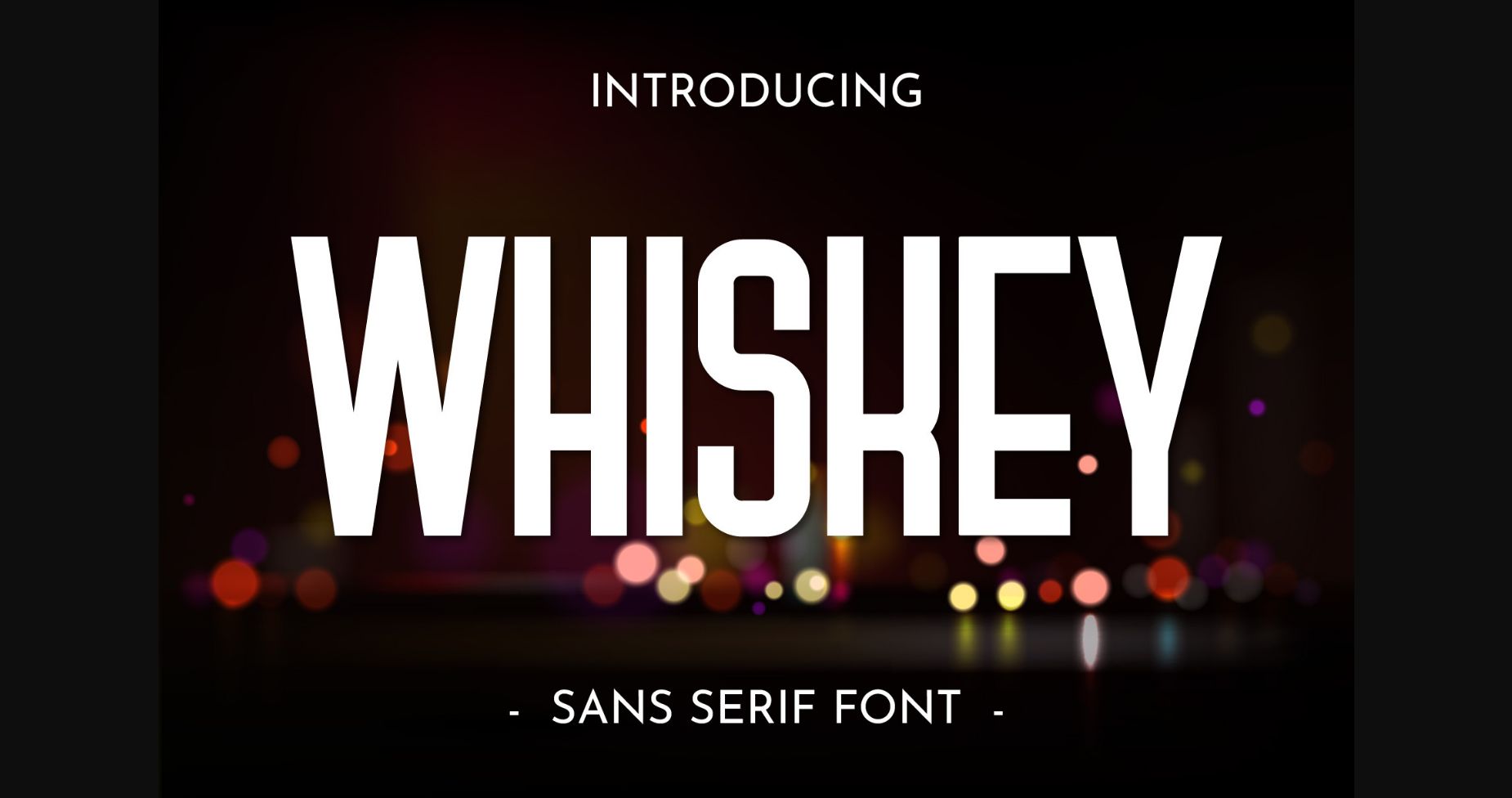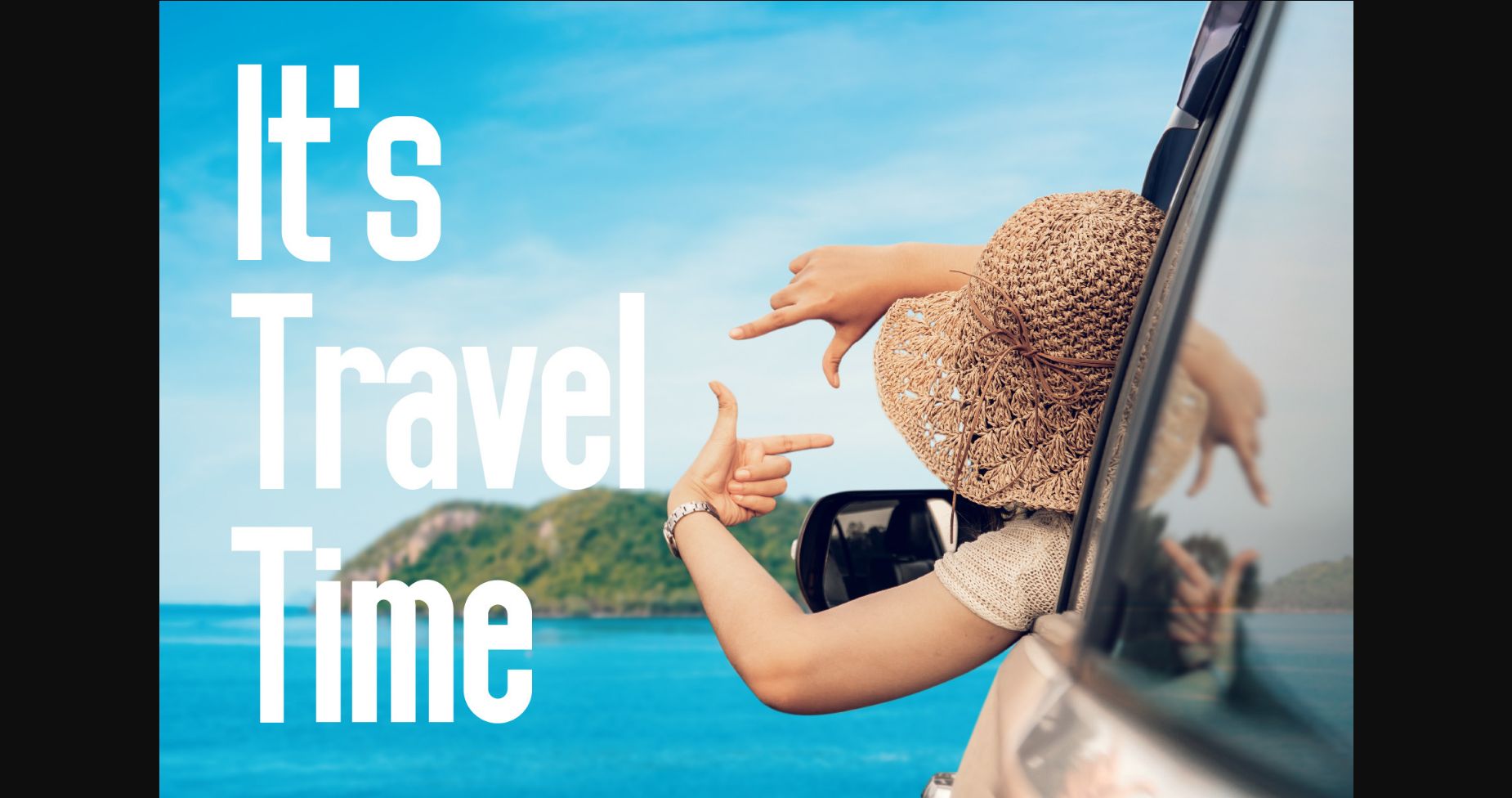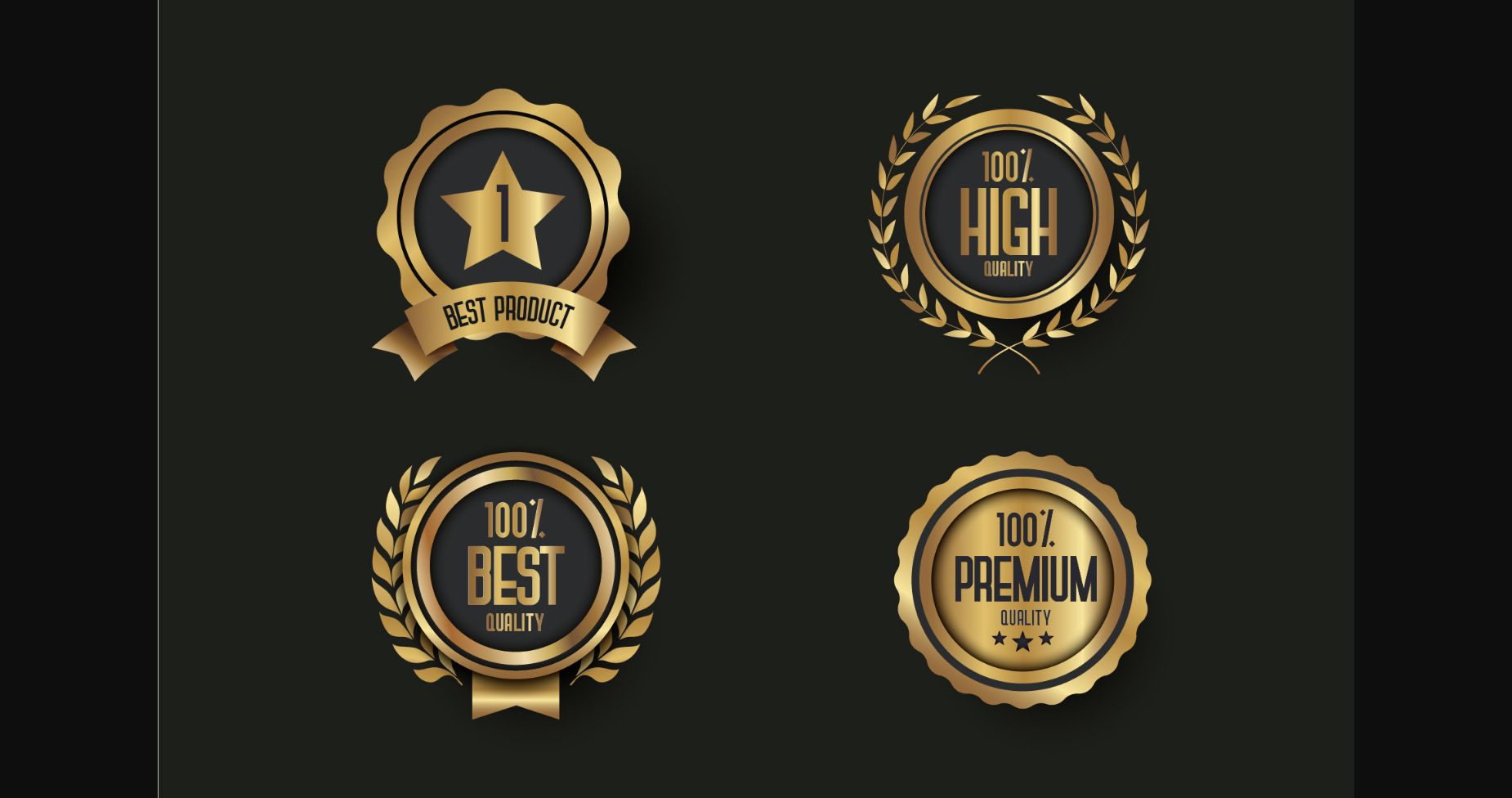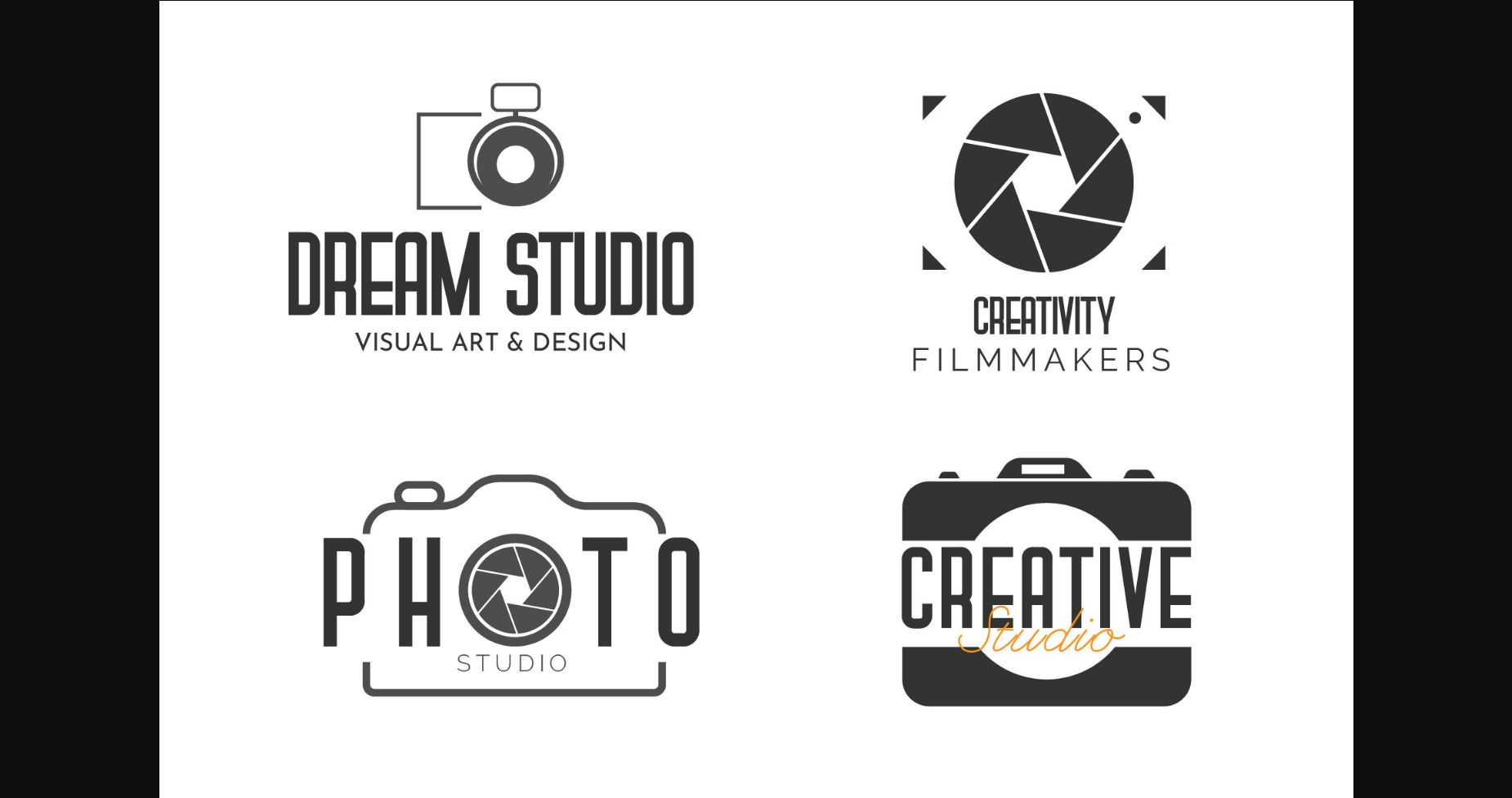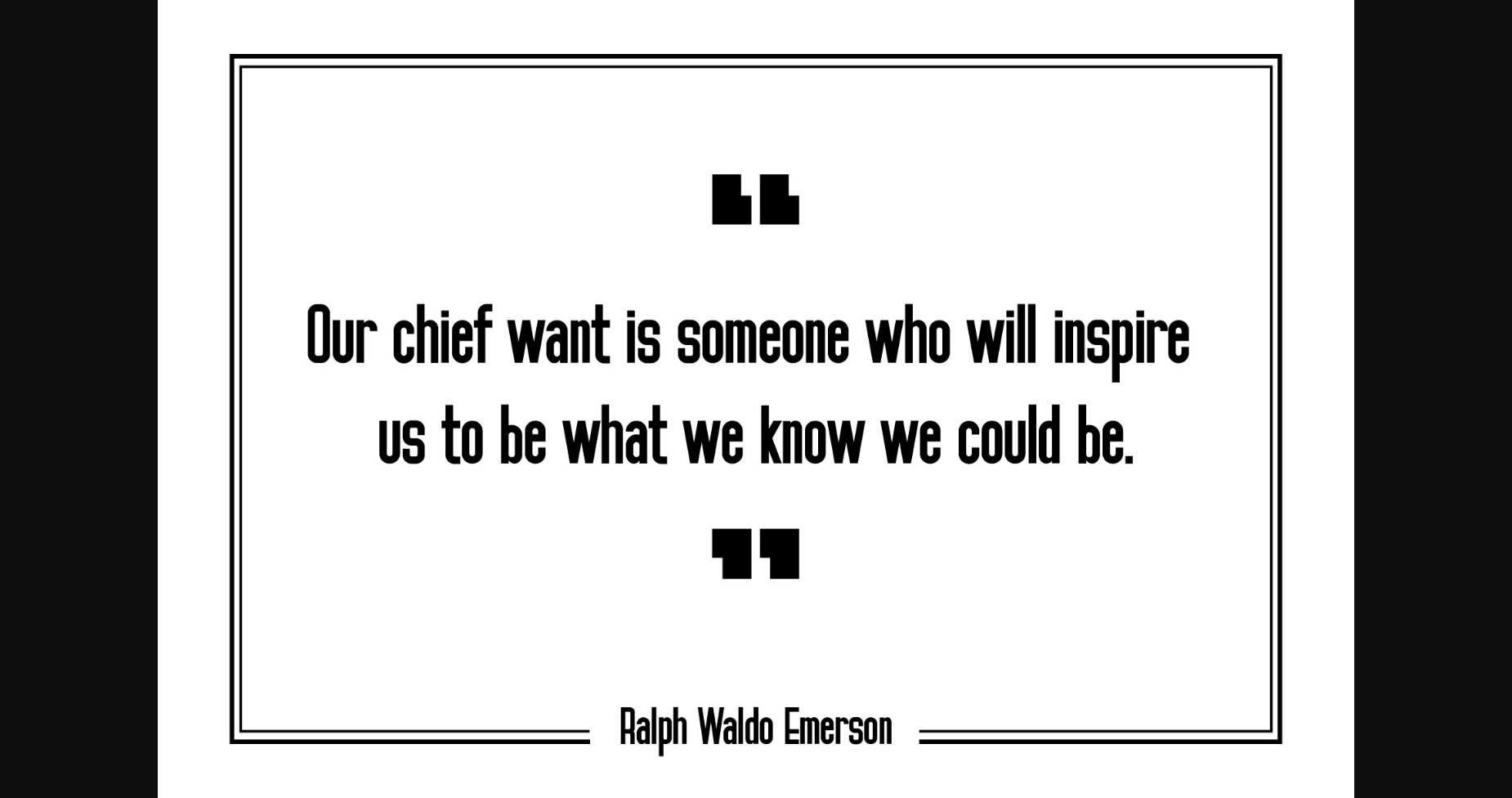
Whiskey Font
About Whiskey Font
Whiskey is a tall, simple sans serif font. This font is perfect for any project. Can do a variety of things such as logos, business cards, cards, posters, brochures, magazines, branding projects, infographics, and more.